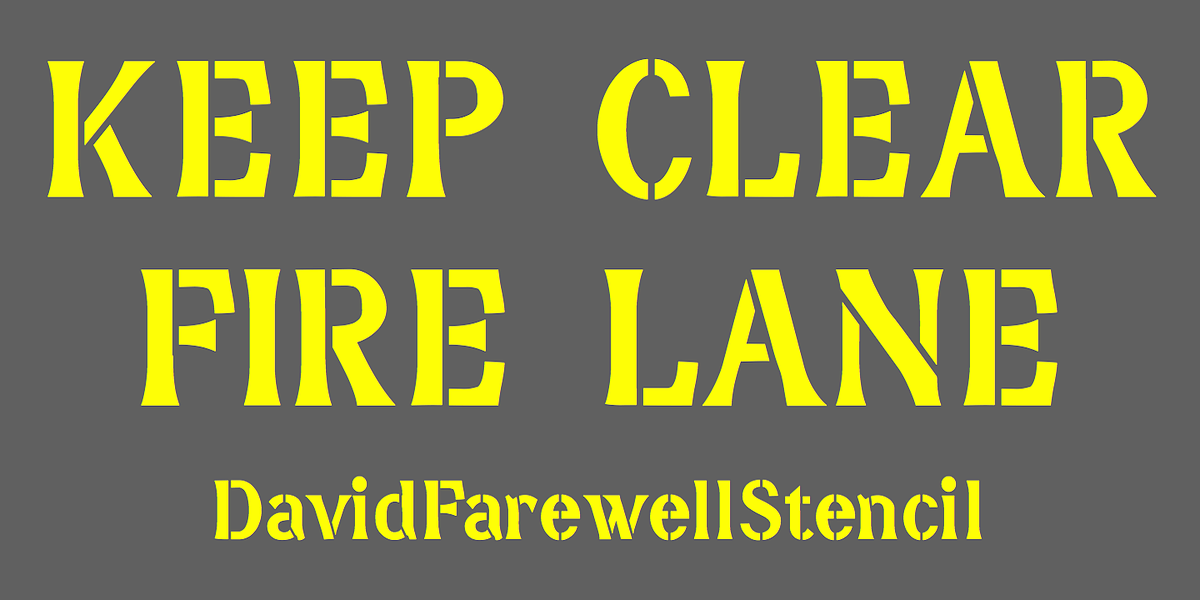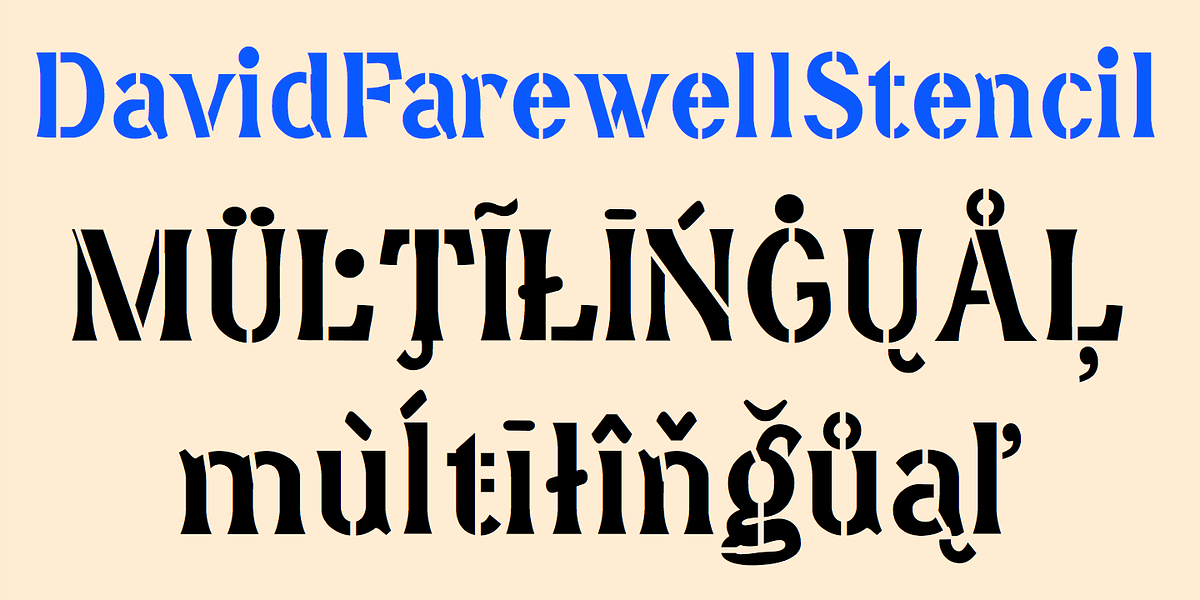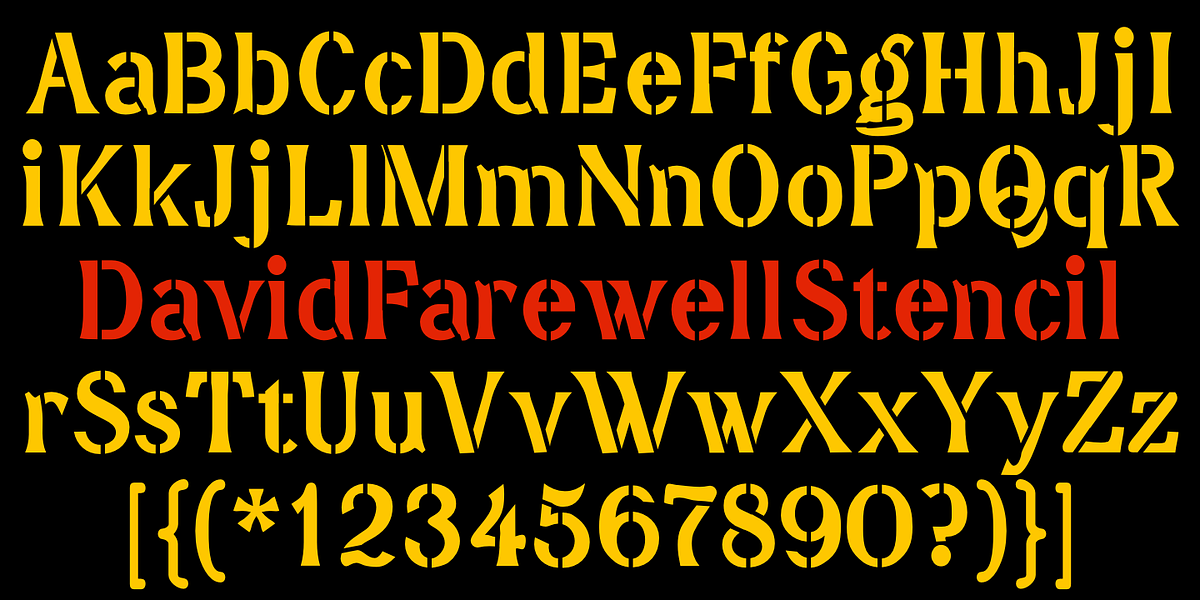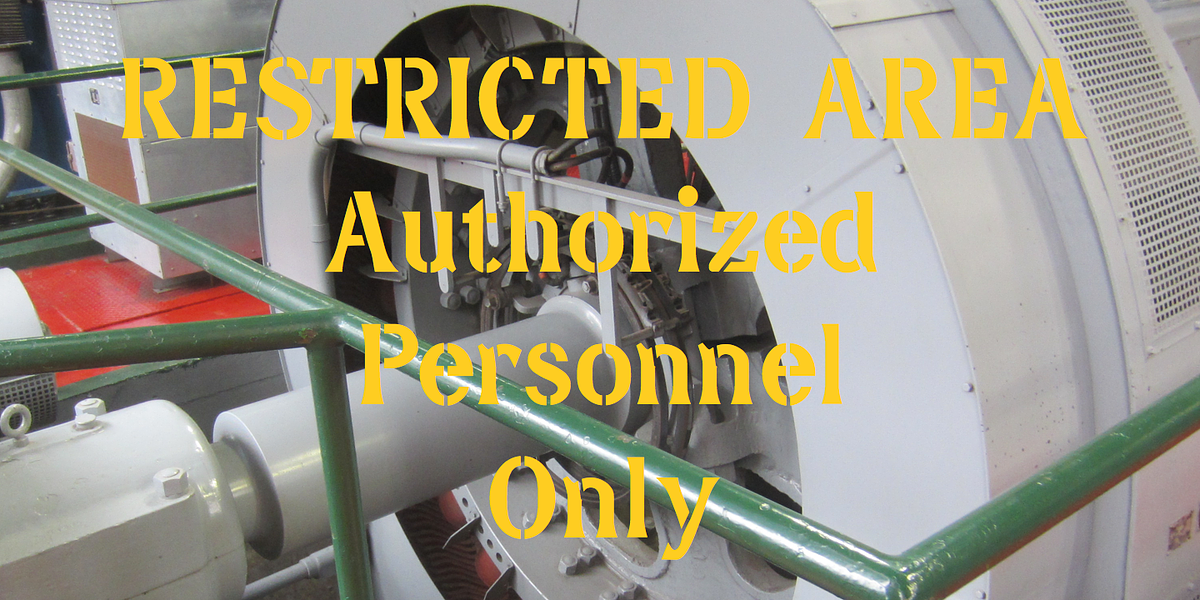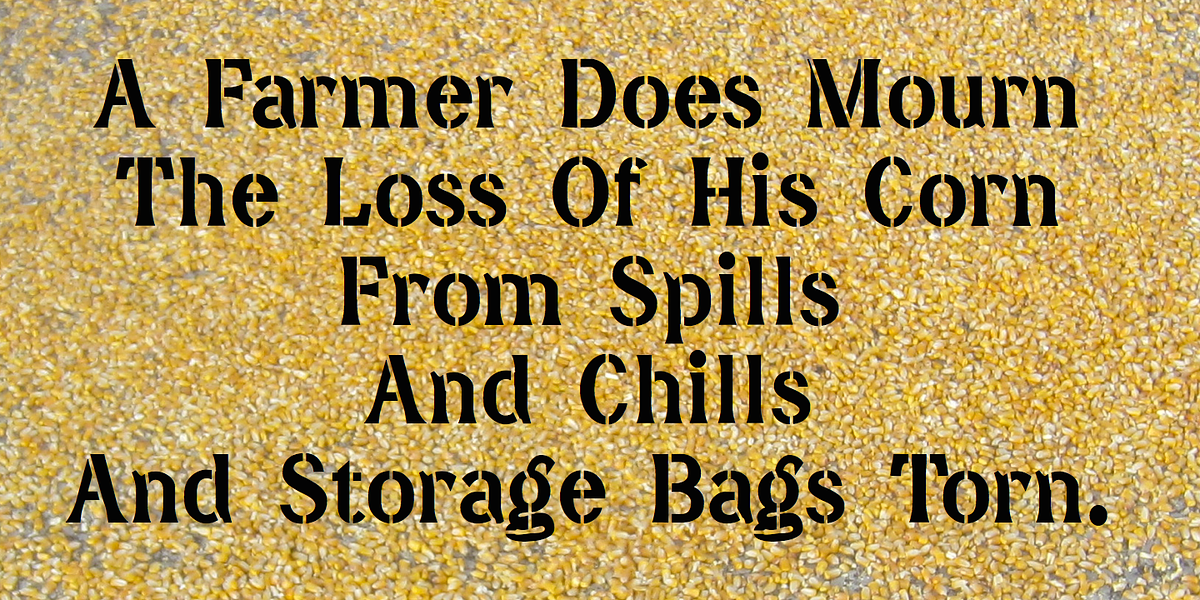
DavidFarewellStencil
This font is a stenciled version of the DavidFarewell typeface. Its bold strokes and flared terminals give it an industrial feel, making it suitable for headlines, posters, and signage where a strong visual impact is desired.